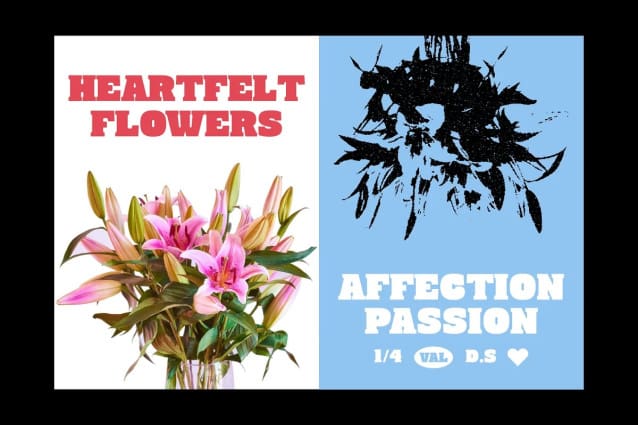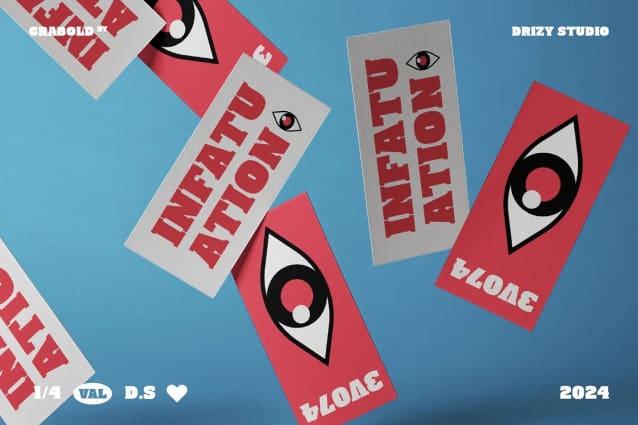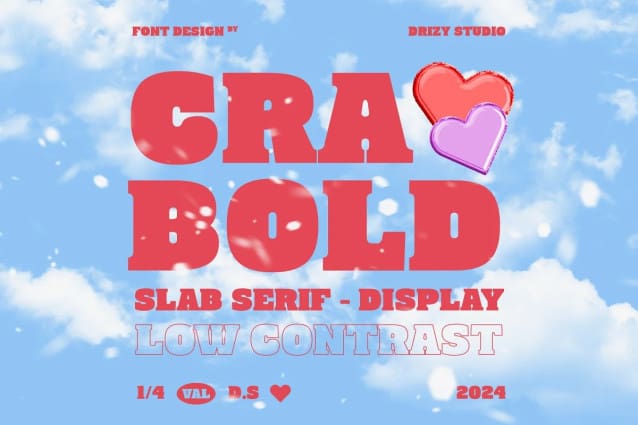
Crabold Font
Crabold Font – a bold and distinctive Slab Serif Display Font that commands attention with its unique personality and strong presence. Crafted with precision and creativity, Crabold effortlessly combines Romance and Valentines Movie classic charm with a modern edge, making it perfect for a wide range of design projects.